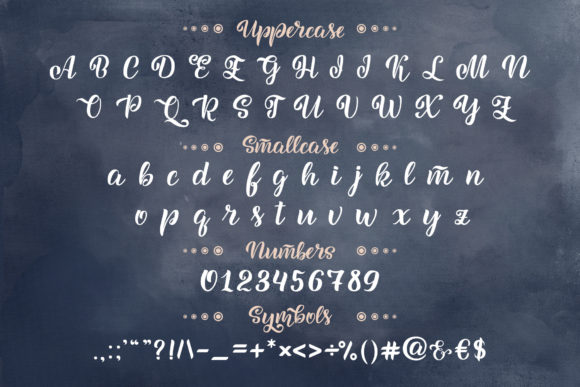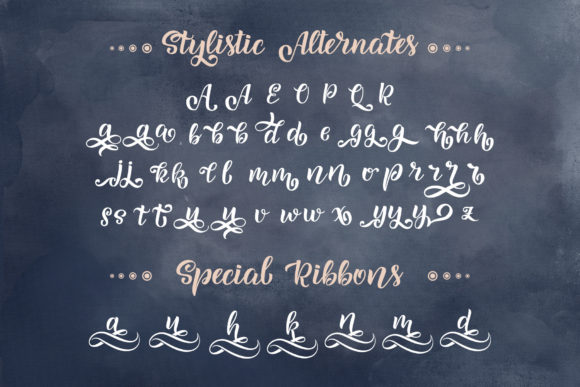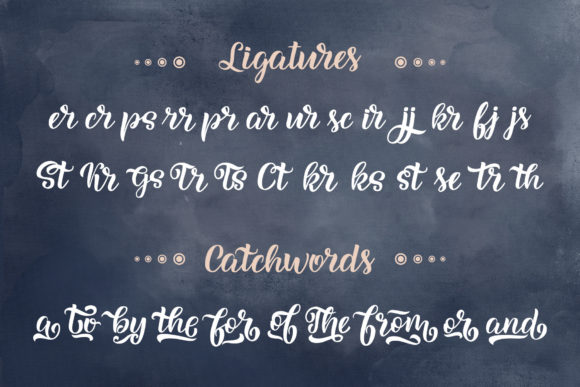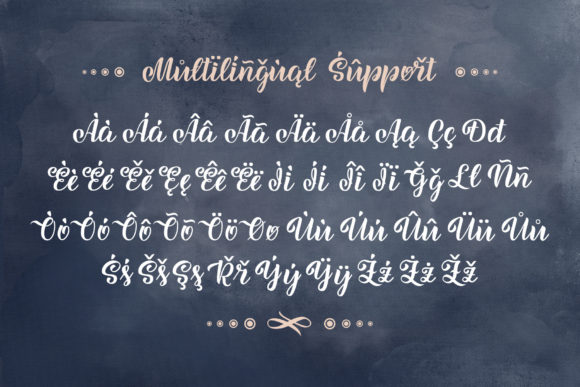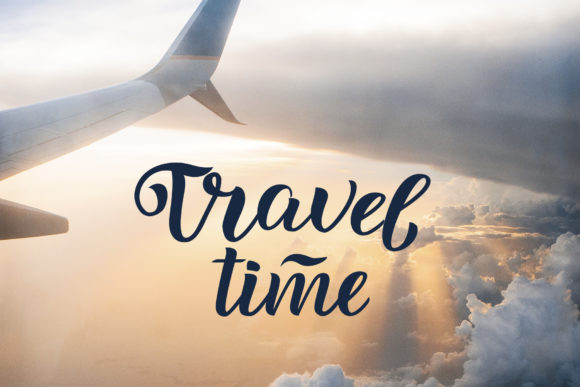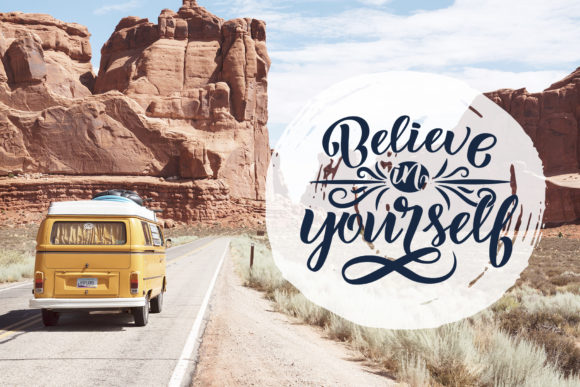
Introducing Anarion Script Font: Elevate Your Designs with a Brush-Pen Touch
In the world of typography, few fonts manage to capture the essence of handcrafted elegance and uniqueness. Anarion Script font is one such gem that brings a touch of personal flair to any design project. Created with a brush pen tool, this stunning script font is based on hand lettering, offering a truly stylish and beautiful typeface that can elevate your designs to new heights.
The Origin and Characteristics of Anarion Script Font
Anarion Script font is the result of meticulous craftsmanship, blending traditional hand lettering techniques with the versatility of modern digital tools. The font’s creator aimed to mimic the fluidity and expressiveness of brush pen writing, resulting in a typeface that feels both organic and refined. Each letterform is carefully designed to connect seamlessly with others, creating a harmonious flow that is perfect for a variety of design applications.
Versatility at Its Best: Use Cases for Anarion Script Font
One of the standout features of Anarion Script font is its incredible versatility. Its unique, hand-crafted aesthetic makes it suitable for a wide range of projects, including:
- Quotes and Social Media Posts: Add a personal touch to your inspirational quotes, stories, or social media updates with a font that feels both contemporary and timeless.
- Logo Designs: Create memorable and impactful logos for brands that want to stand out with a touch of elegance and personality.
- Branding and Packaging: Elevate your brand’s visual identity with a font that exudes sophistication and charm, perfect for product packaging, business cards, and more.
- Invitations and Event Materials: Make your event invitations, flyers, and posters more appealing with a font that adds a touch of class and uniqueness.
Why Designers and Crafters Love Anarion Script Font
Designers and crafters are always on the lookout for fonts that can help their projects stand out from the crowd. Anarion Script font ticks all the right boxes:
- Uniqueness: Its hand lettered origin ensures that your designs will have a distinctive look that sets them apart.
- Readability: Despite its artistic nature, Anarion Script font maintains a high level of readability, making it suitable for both short phrases and longer texts.
- Flexibility: Available in various weights or styles, it can be adapted to fit different design requirements and aesthetics.
- Ease of Use: Designed with user-friendliness in mind, it can be easily integrated into popular design software.
Tips for Getting the Most Out of Anarion Script Font
To maximize the impact of Anarion Script font in your designs, consider the following tips:
- Pair it with Simpler Fonts: For optimal contrast, use Anarion Script font alongside simpler, sans-serif fonts for body text or headings.
- Adjust Letter Spacing: Fine-tune the letter spacing to ensure that your text is easy to read and visually appealing.
- Experiment with Colors: Take advantage of the font’s versatility by experimenting with different colors and gradients that complement your design theme.
- Emphasize Key Elements: Use size variations or bold styles of the font to draw attention to key messages or calls to action.
Anarion Script font is a remarkable addition to any designer’s toolkit. Its unique blend of traditional hand lettering and modern digital craftsmanship makes it a versatile and stylish choice for a wide range of projects. Whether you’re a professional designer or a crafter looking to add a personal touch to your work, Anarion Script font offers the perfect combination of beauty, uniqueness, and readability. Discover the creative possibilities with Anarion Script font and take your designs to the next level.